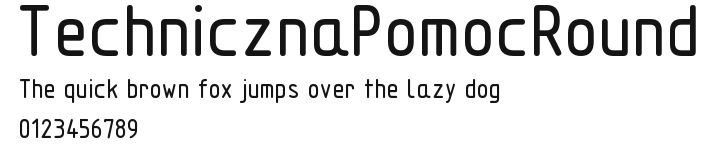
TechnicznaPomocRound Preview
• Font Name: TechnicznaPomocRound
• Full Font Name: TechnicznaPomocRound
• Designer: bartek nowak
• Manufacturer: fontoholic
About TechnicznaPomocRound.ttf
TechnicznaPomocRound.ttf is a modern, elegant sans-serif font designed for ultimate readability and visual harmony. Perfect for branding, headlines, web design, and print materials.